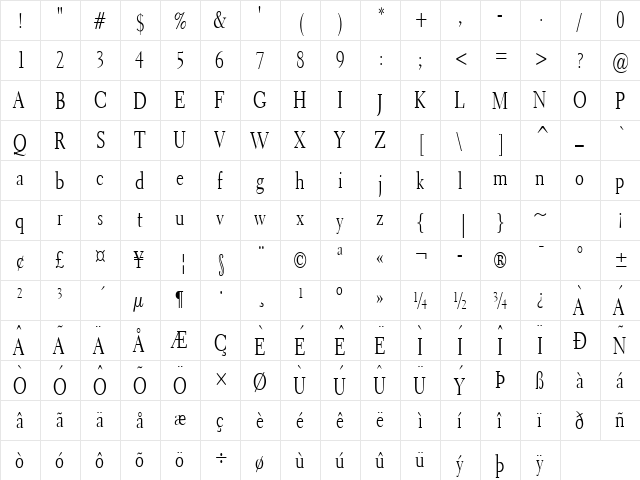
Transit 2 Condensed Normal
Transit 2 Condensed takes a measured approach to typography — its balanced proportions and neutral character make it a reliable workhorse for both digital and print work. Its narrow stance lets it pack a punch even in space-constrained designs.